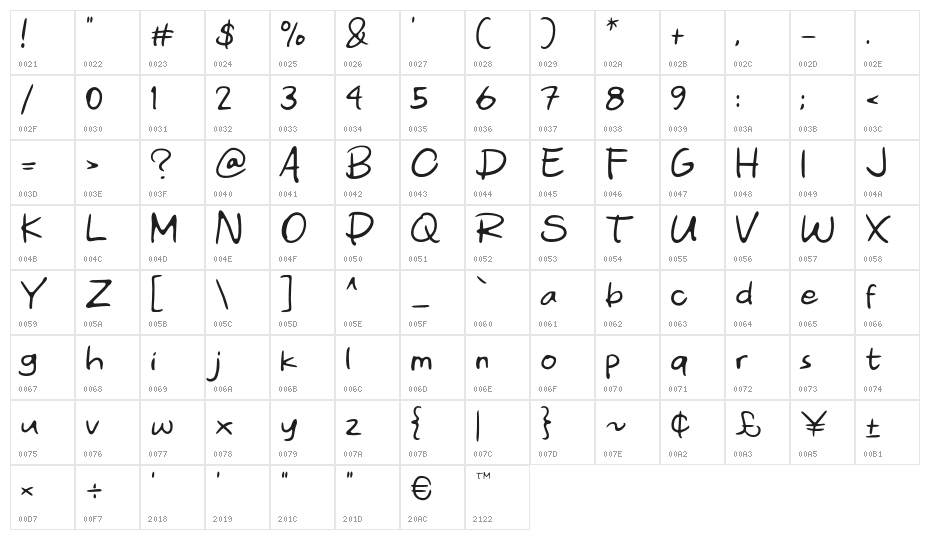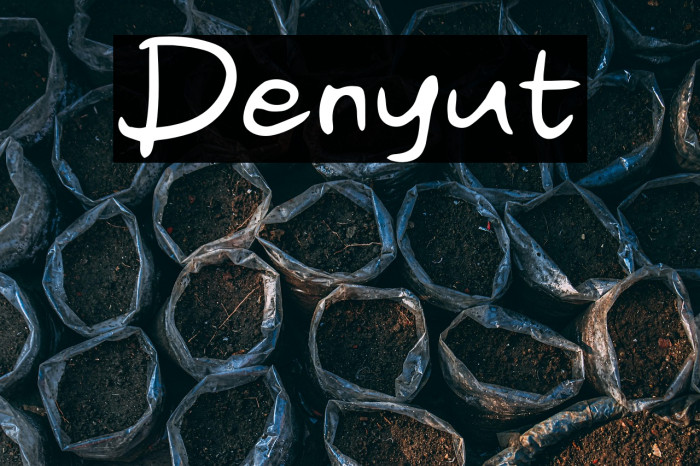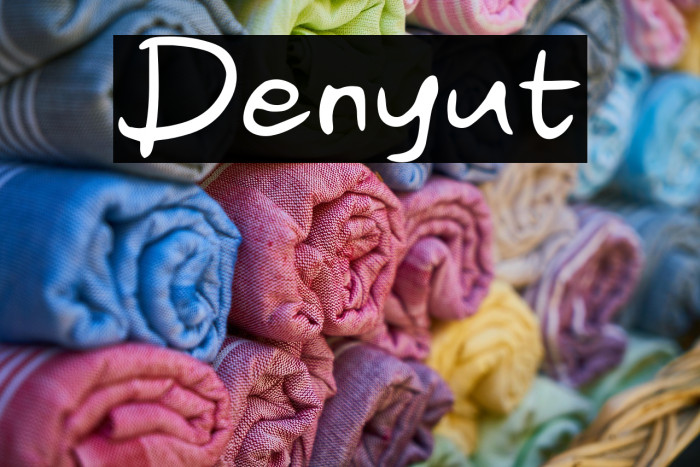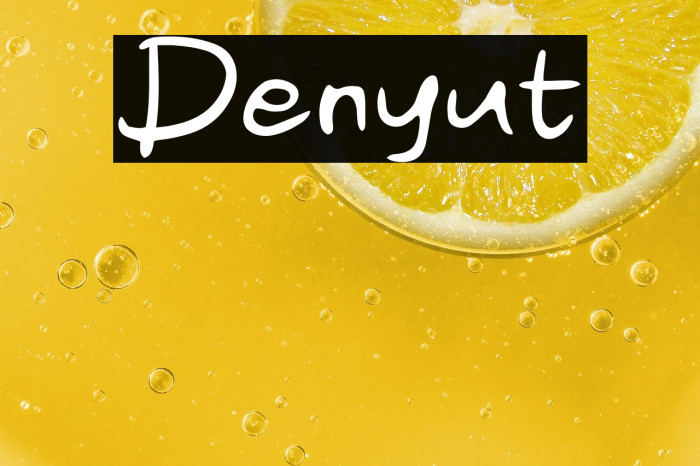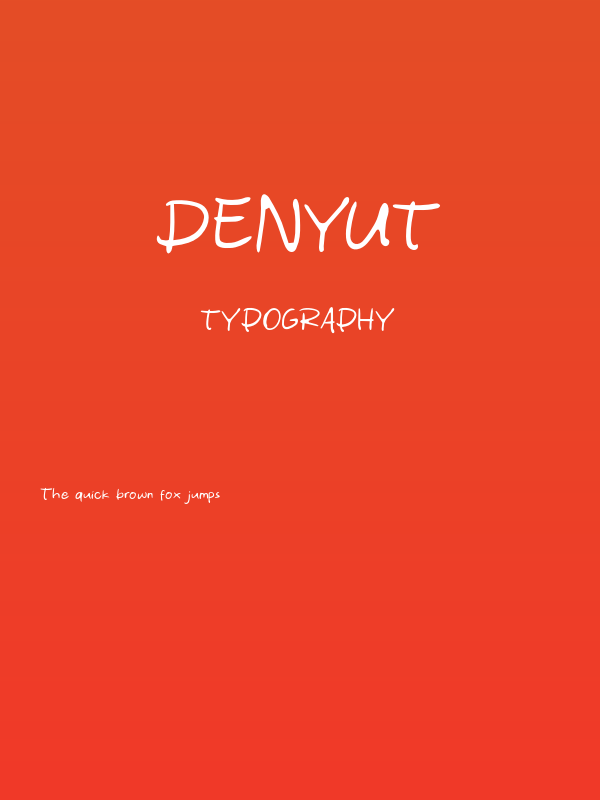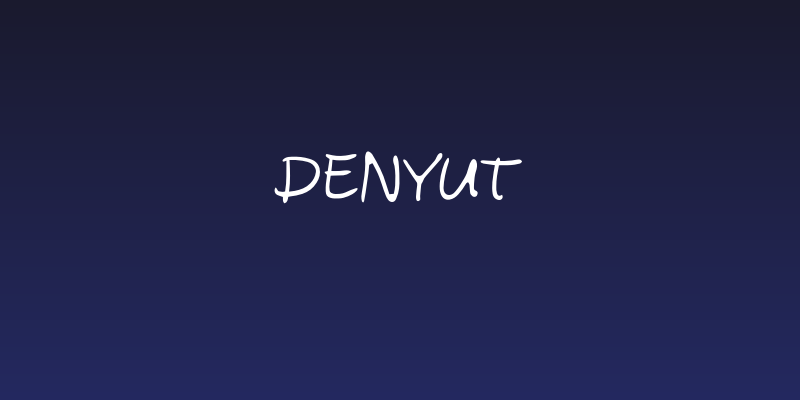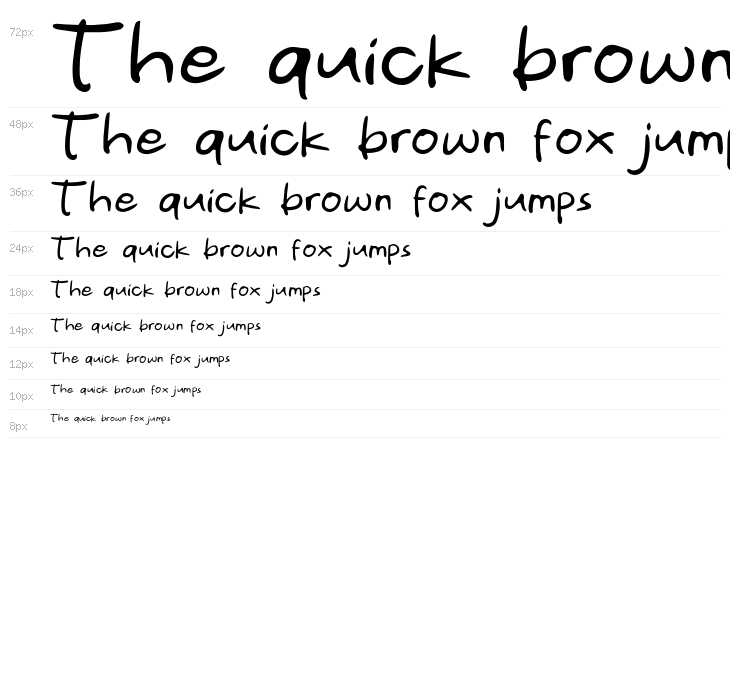
Denyut Font
Denyut Description
This font features a playful and casual handwritten style, characterized by its smooth, flowing lines and slightly irregular shapes. The uppercase letters are bold and confident, while the lowercase letters maintain a friendly and approachable appearance. The numbers and special characters are consistent with the overall style, adding to its cohesive look. The font's organic feel makes it suitable for projects that require a personal touch, such as invitations, greeting cards, or creative branding. Its legibility and charm make it versatile for various design needs.
| Overall Style | Casual, Playful |
| Use Case | Headlines, Logos, Invitations |
| Proposed Projects | Ideal for invitations, greeting cards, personal branding, and creative projects. |